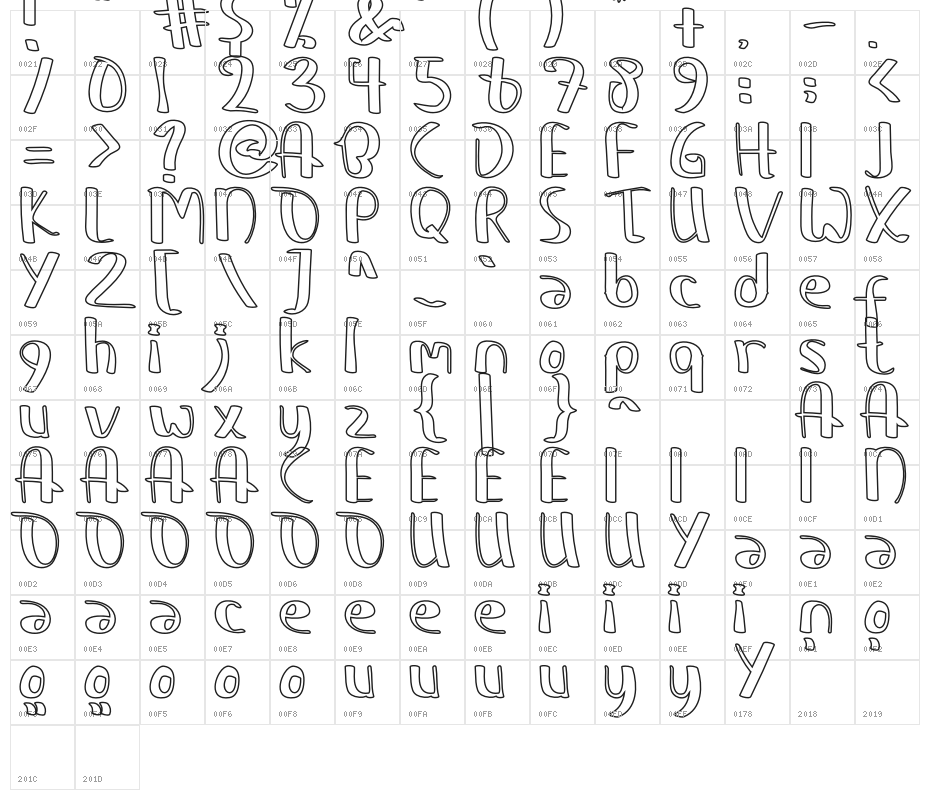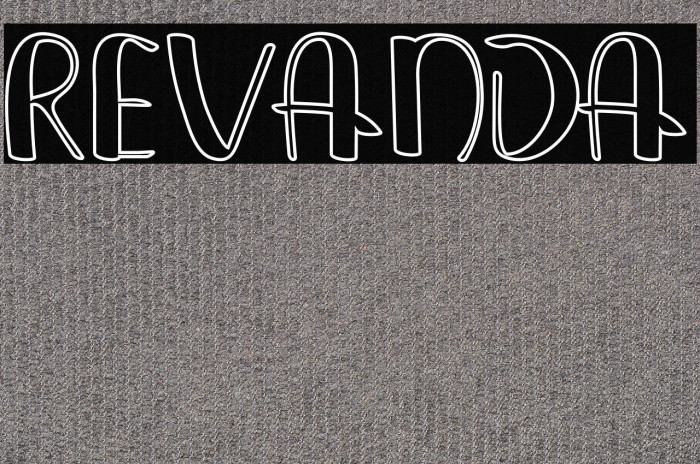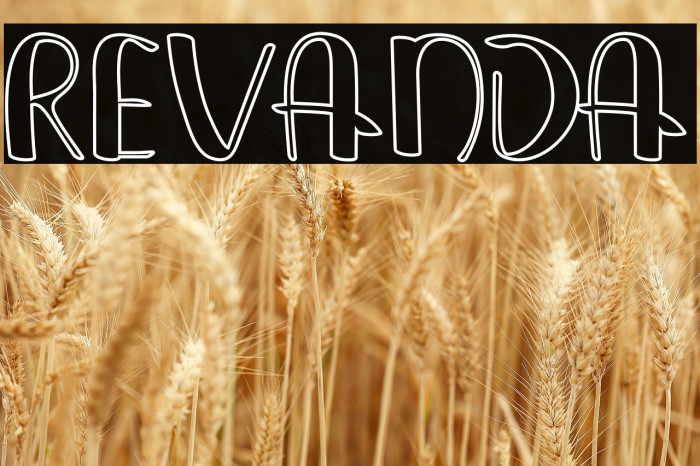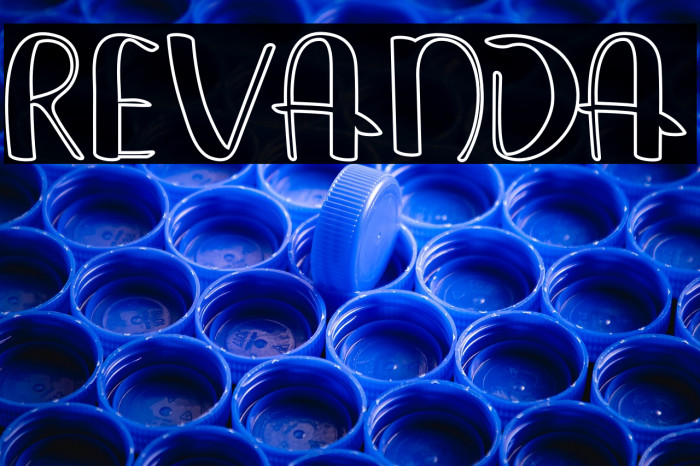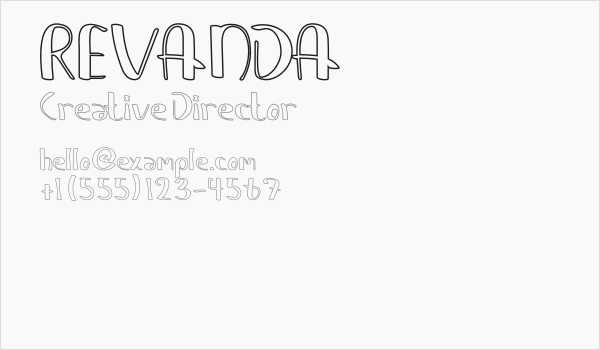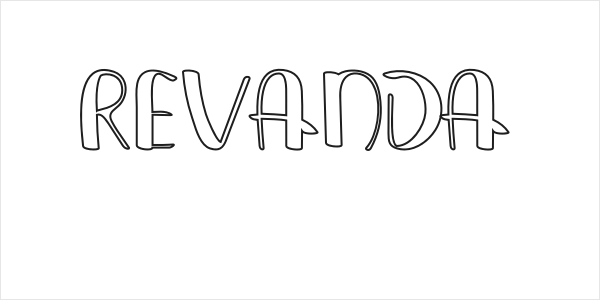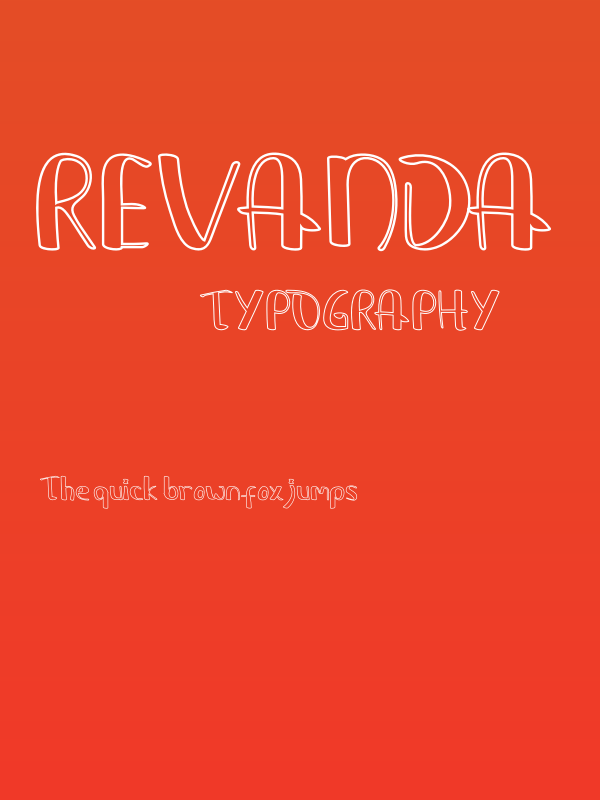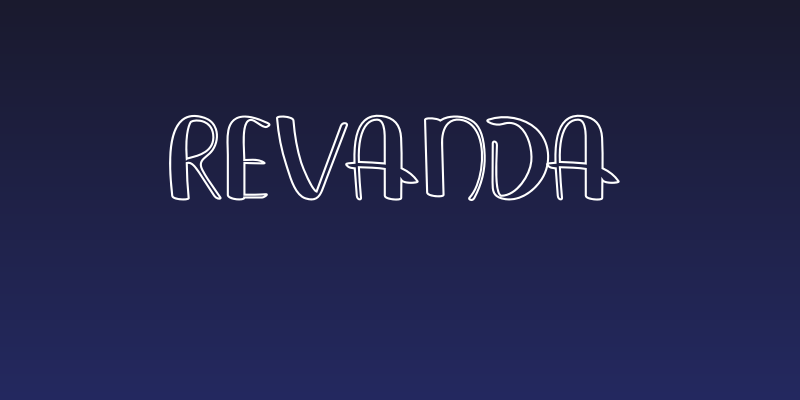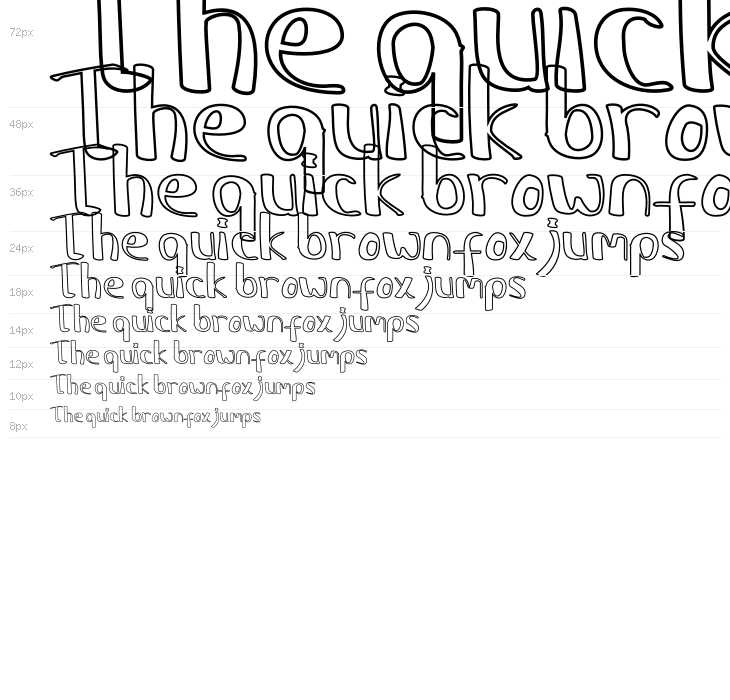
REVANDA Font
REVANDA Description
This font features a playful and whimsical design with a hand-drawn aesthetic. The letters are outlined with a consistent stroke width, giving them a cartoonish and informal appearance. The characters are slightly irregular, adding to the casual and friendly vibe. The uppercase and lowercase letters maintain a consistent style, with rounded edges and a flowing form. Numbers and special characters are designed to match the playful nature of the alphabet, making this font suitable for creative and informal projects.
| Overall Style | Whimsical, Playful, Informal |
| Proposed Projects | Ideal for children's books, playful branding, greeting cards, and casual invitations. |